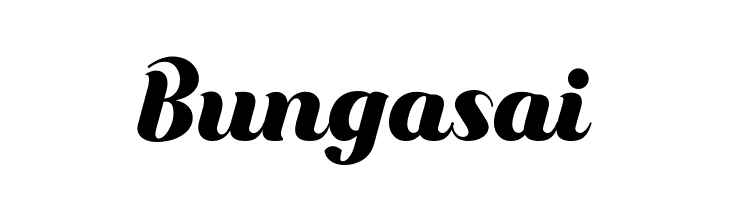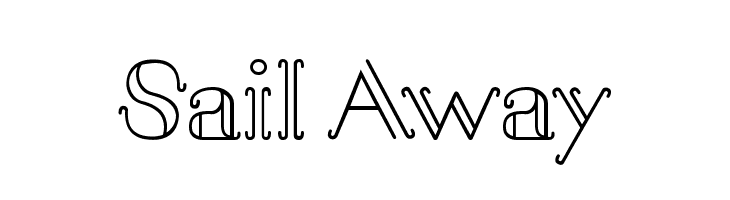
A futuristic, geometric font with a sleek and modern design.
A bold, nautical-themed decorative font with anchor-like serifs.
A playful, handwritten font with rounded, elongated characters.
A bold, flowing script font with elegant curves and high contrast.
A bold, vintage-style font with a rugged, maritime-inspired aesthetic.
A playful, nautical-themed font with a whimsical, hand-drawn style.
A bold, playful font with a hand-drawn aesthetic.
A bold, playful font with wavy, exaggerated curves and a whimsical style.